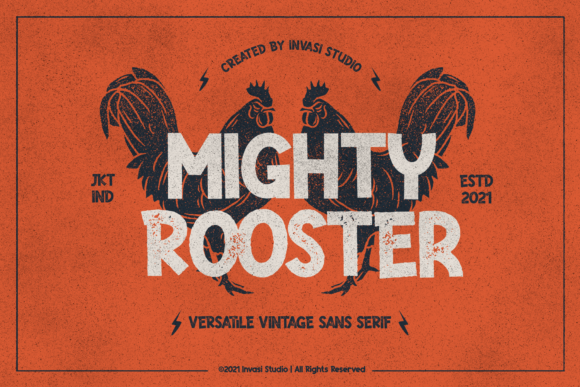
In a world awash with bland, monotonous fonts, Mighty Rooster emerges as a radiant beacon of uniqueness and pizzazz. This display font, lovingly crafted by the talented hands of invasistudio, is more than just a collection of letters; it's an artistic expression that breathes life into your creative endeavors.
With its bold, vintage-inspired strokes, Mighty Rooster exudes a sense of nostalgia, evoking memories of simpler times when art was audacious and unyielding. Each letter is meticulously designed, featuring thick, sturdy lines that command attention and leave an indelible mark on the viewer's mind.
But Mighty Rooster is more than just visually striking; it's also incredibly versatile. Whether you're designing a captivating logo, crafting a thought-provoking poster, or adding a touch of whimsy to your social media posts, this font rises to the occasion, adapting seamlessly to your creative vision.
Unleash your inner meme lord with Mighty Rooster, the font that transforms ordinary text into comedic gold. Its playful, attention-grabbing style is the perfect vehicle for your witty one-liners and hilarious observations. Let your memes stand out from the crowd, leaving your audience in stitches and eagerly awaiting your next comedic masterpiece.
But Mighty Rooster's talents extend far beyond the realm of memes. It's equally adept at crafting eye-catching headlines, adding a touch of sophistication to branding materials, and creating stunning social media graphics that demand attention and boost engagement.
With Mighty Rooster in your creative arsenal, you'll never again struggle to find the perfect font. Its versatility and timeless appeal make it an indispensable tool for any designer, marketer, or creative professional seeking to leave a lasting impression. Embrace the power of Mighty Rooster and watch your creative projects soar to new heights of excellence.